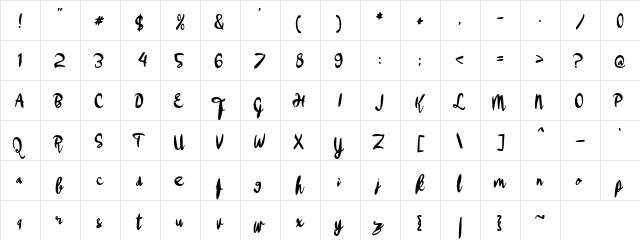
aApollo Regular
Design Context for aApollo Typeface
aApollo is a composed and adaptable typeface that performs quietly and consistently across a wide range of design contexts.